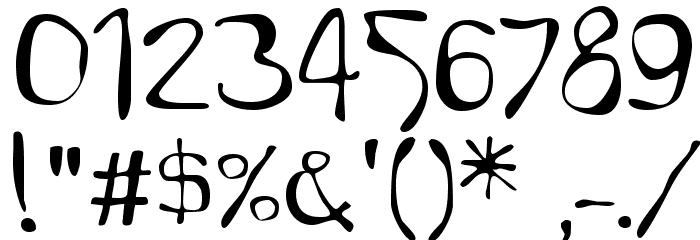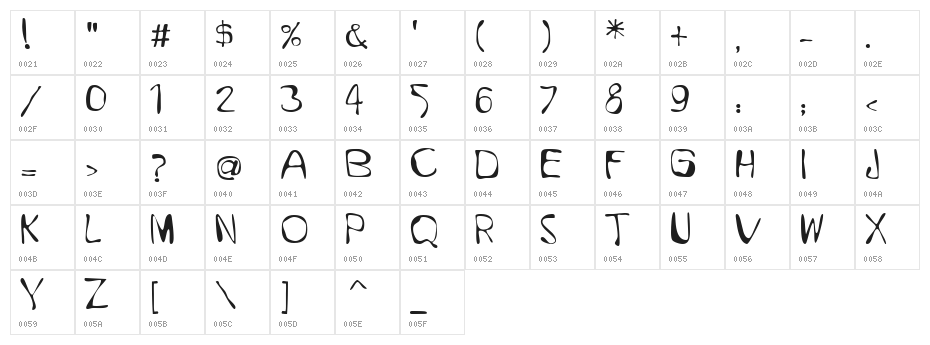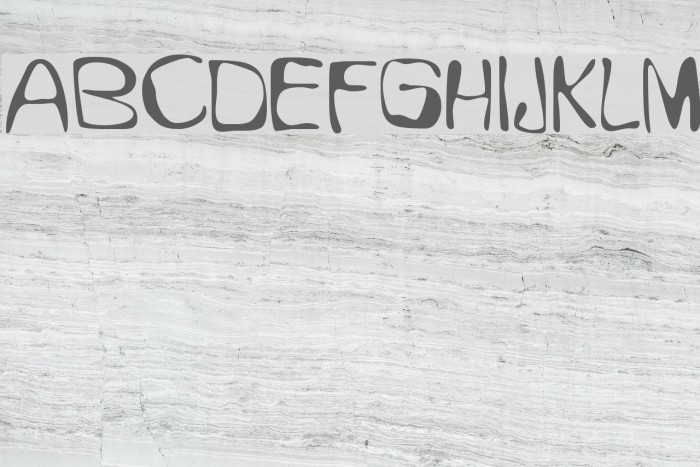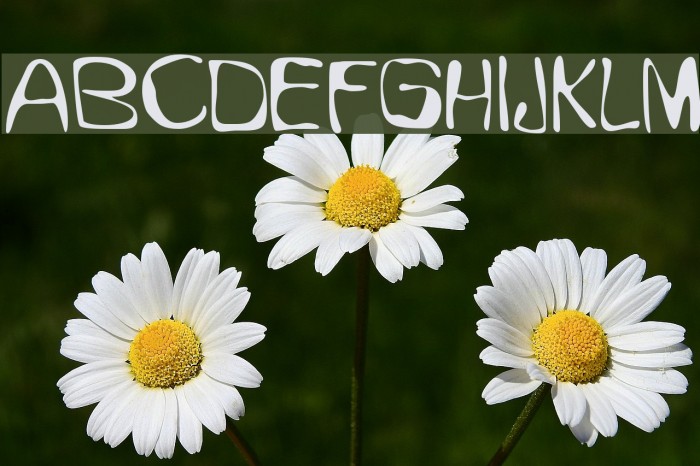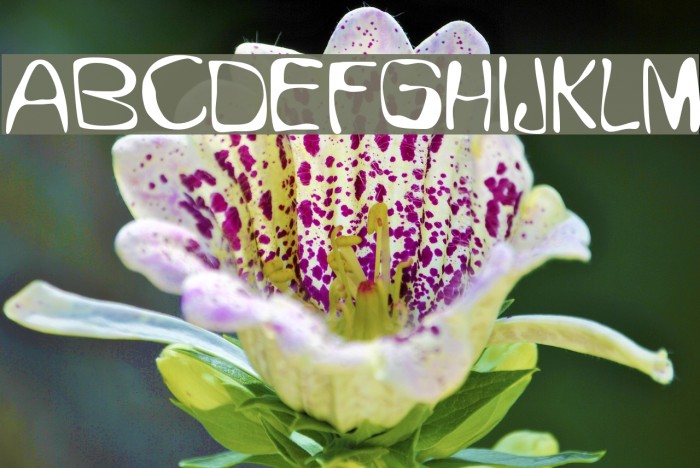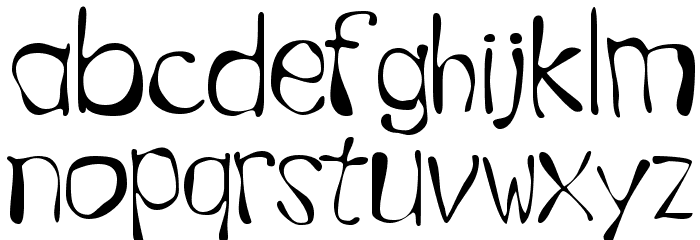
GFWet Font
GFWet Description
This font features a playful and whimsical design, characterized by its irregular and organic shapes. The letters have a hand-drawn appearance, with varying stroke thickness that adds a dynamic and lively feel. The uppercase and lowercase letters maintain a consistent style, with rounded edges and a slightly uneven baseline, enhancing its casual and approachable look. The numerals and special characters follow the same aesthetic, making the font versatile for creative projects. Its unique style makes it stand out, perfect for designs that require a touch of personality and fun.